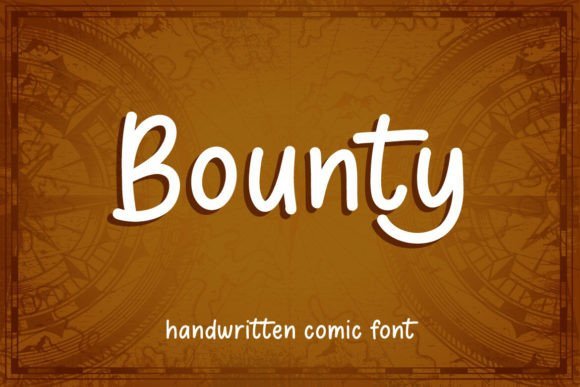
The Perfect Handwritten Touch: Unlocking the Power of Bounty Font
You know that moment when you’re working on a design project, and you just can’t seem to find the right font to bring it all together? The words on the page feel stiff, the tone feels forced, and you just want to give your design a warm, personal touch? That’s where Bounty Font comes in – a sweet and friendly handwritten font that’s designed to add a natural, unique flair to any project.
Bounty Font is more than just a font – it’s a tool for designers who want to create authentic, eye-catching designs that speak to their audience. With its wide range of applications, from branding and advertising to social media and editorial content, the Bounty Font is the perfect addition to any design toolkit. Whether you’re a seasoned pro or just starting out, this font is sure to unlock new creative possibilities and help you take your designs to the next level.
- Unique Characteristics: Bounty Font features a unique blend of modern and vintage elements, making it perfect for designs that require a touch of sophistication and elegance.
Bounty Font Review
I’ve had the chance to work with the Bounty font, and here’s my honest review.
- Unique and modern design: Bounty font has a distinctive look that’s perfect for brands and designers looking for something fresh.
- Wide language support: This font includes support for multiple languages, making it a versatile option for global projects.
- High-quality rendering: Bounty font renders well on various devices and screen sizes, ensuring a smooth user experience.
- Limited customization options: Bounty font doesn’t offer many customization options, which might limit its use in specific design scenarios.
- Not ideal for small text sizes: At small text sizes, the font can become difficult to read, which is a common issue with many sans-serif fonts.
Overall, I think Bounty font is a solid choice for designers and brands looking for a modern, unique font. However, its limitations might make it less suitable for specific use cases. With a bit more customization flexibility and web font kits, it could be an even more appealing option.
Getting the Most Out of Bounty Font
To get the most out of Bounty Font, try the following:
- Experiment with different font sizes and styles to achieve the desired look.
- Pair Bounty Font with other fonts to create a unique and visually appealing design.
- Use Bounty Font for headings and titles to draw attention to important information.
Q: What is the recommended font size and line height for the Bounty Font?
The recommended font size for the Bounty Font is between 10pt and 24pt. For body text, a line height of 1.2 to 1.5 times the font size is recommended. This will help ensure readability and balance in your designs.